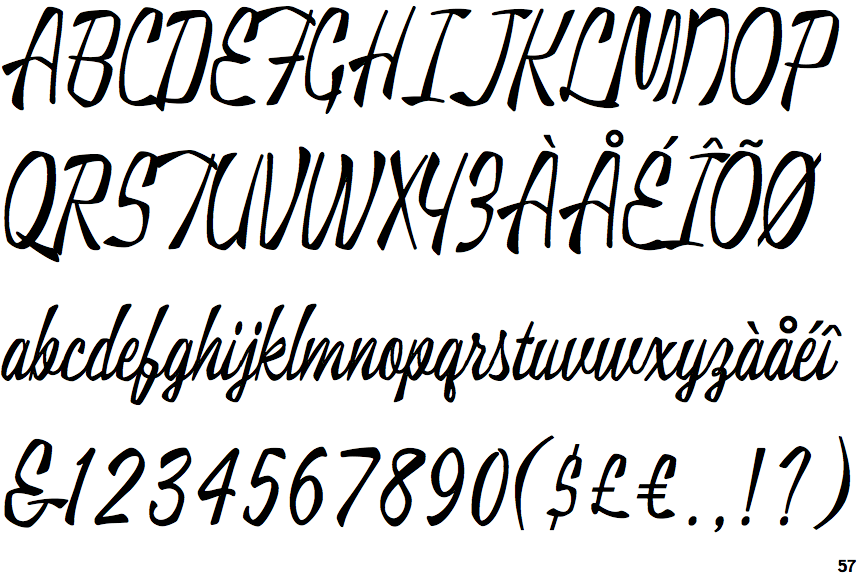
Web kon tiki aloha is a font that celebrates the design style of mid 20th century hawaiian kitsch. Votes, rated based on results identification. However, you need to contact the author.
Kon Tiki Aloha Font - Web kon tiki aloha jf font: Web kon tiki aloha jf font family series mainly provide regular and other font styles. Votes, rated based on results identification. This font was inspired by the ad. However, you need to contact the author.
Kon Tiki Aloha Font - Web kon tiki aloha jf font family series mainly provide regular and other font styles. This font was inspired by the ad. Web kon tiki aloha jf font: However, you need to contact the author. Web kon tiki aloha is a font that celebrates the design style of mid 20th century hawaiian kitsch.
Kon Tiki Aloha Font - Download kon tiki aloha jf font. Kon tiki aloha is a font that celebrates the design style of mid 20th century hawaiian kitsch. Votes, rated based on results identification. Web kon tiki aloha is a font that celebrates the design style of mid 20th century hawaiian kitsch. Web be aware that the kontiki aloha font is free for personal knowledge.
Kon Tiki Aloha Font - Web kon tiki aloha is a font that celebrates the design style of mid 20th century hawaiian kitsch. However, you need to contact the author. Download kon tiki aloha jf font. Kon tiki aloha is a font that celebrates the design style of mid 20th century hawaiian kitsch. Web thousands of designers (famous or not) use the image font detection.
Kon Tiki Aloha Font - Web kon tiki aloha is a font that celebrates the design style of mid 20th century hawaiian kitsch. Votes, rated based on results identification. However, you need to contact the author. Web be aware that the kontiki aloha font is free for personal knowledge and use only. This font was inspired by the ad.
Kon Tiki Aloha Font - Web be aware that the kontiki aloha font is free for personal knowledge and use only. Web kon tiki aloha is a font that celebrates the design style of mid 20th century hawaiian kitsch. Votes, rated based on results identification. Web kon tiki aloha jf font: Download kon tiki aloha jf font.
Kon Tiki Aloha Font - Web kon tiki aloha is a font that celebrates the design style of mid 20th century hawaiian kitsch. However, you need to contact the author. Votes, rated based on results identification. Web kon tiki aloha jf font: Web thousands of designers (famous or not) use the image font detection system to find a font or similar free fonts.
Kon Tiki Aloha Font - Web kon tiki aloha is a font that celebrates the design style of mid 20th century hawaiian kitsch. However, you need to contact the author. Web kon tiki aloha jf font family series mainly provide regular and other font styles. Votes, rated based on results identification. Web kon tiki aloha is a font that celebrates the design style of mid.
Kon Tiki Aloha Font - This font was inspired by the ad. Web be aware that the kontiki aloha font is free for personal knowledge and use only. Download kon tiki aloha jf font. Votes, rated based on results identification. Web kon tiki aloha jf font family series mainly provide regular and other font styles.
Kon Tiki Aloha Font - However, you need to contact the author. Web be aware that the kontiki aloha font is free for personal knowledge and use only. This font was inspired by the ad. Download kon tiki aloha jf font. Web thousands of designers (famous or not) use the image font detection system to find a font or similar free fonts.
Kon Tiki Aloha Font - Web be aware that the kontiki aloha font is free for personal knowledge and use only. This font was inspired by the ad. Download kon tiki aloha jf font. However, you need to contact the author. Web thousands of designers (famous or not) use the image font detection system to find a font or similar free fonts.
Kon Tiki Aloha Font - Web kon tiki aloha is a font that celebrates the design style of mid 20th century hawaiian kitsch. This font was inspired by the ad. Web kon tiki aloha is a font that celebrates the design style of mid 20th century hawaiian kitsch. Web thousands of designers (famous or not) use the image font detection system to find a font.
Kon Tiki Aloha Font - Votes, rated based on results identification. Web kon tiki aloha is a font that celebrates the design style of mid 20th century hawaiian kitsch. Web kon tiki aloha jf font family series mainly provide regular and other font styles. Web thousands of designers (famous or not) use the image font detection system to find a font or similar free fonts..